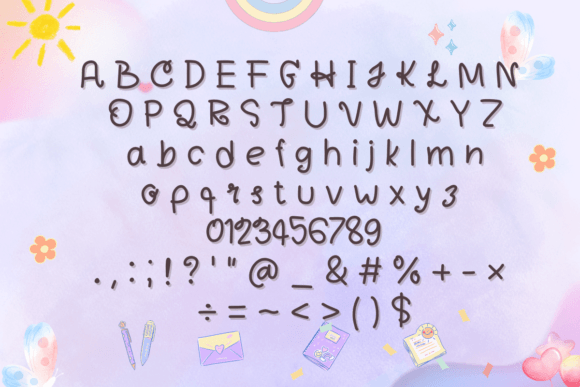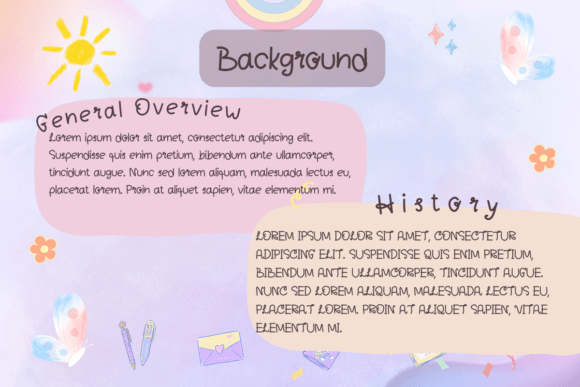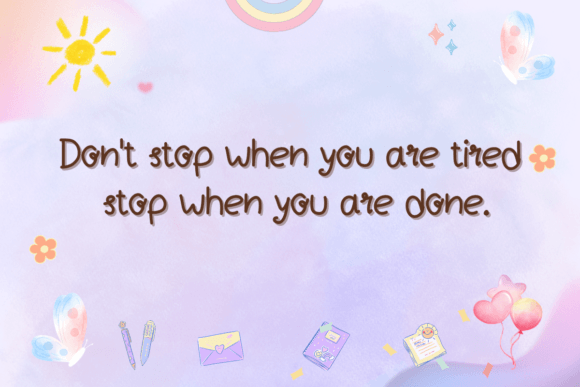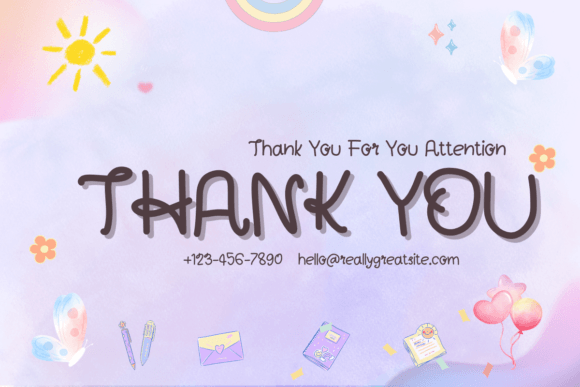
Fireworks Font: A Handwritten Delight for Creative Projects
Are you on the lookout for a unique and playful font to add a personal touch to your creative projects? Look no further than the Fireworks Font! This beautiful handwritten font is perfect for a variety of uses, from taking notes and writing diaries to creating stunning greeting cards and designs. In this article, we’ll explore the versatility of Fireworks Font and how you can use it to elevate your designs.
What is Fireworks Font?
Fireworks Font is a handwritten font that boasts a carefree and whimsical feel. Its flowing lines and delicate curves make it perfect for adding a touch of personality to any project. Whether you’re a designer, crafter, or simply a DIY enthusiast, Fireworks Font is an excellent choice for anyone looking to add a bit of flair to their work.
Uses for Fireworks Font
So, what can you use Fireworks Font for? The possibilities are endless! Here are some ideas to get you started:
- Note-taking and journaling: Add a personal touch to your notes and diary entries with Fireworks Font. Its handwritten feel makes it perfect for recording your thoughts, ideas, and inspirations.
- Greeting cards and invitations: Create beautiful, one-of-a-kind greeting cards and invitations with Fireworks Font. Its playful feel is sure to delight the recipient and make your card stand out.
- Banners and signs: Use Fireworks Font to create eye-catching banners and signs for parties, events, or promotions. Its bold and playful feel is sure to grab attention.
- Social media posts: Add a touch of personality to your social media posts with Fireworks Font. Use it to create engaging and shareable content that will help you connect with your audience.
- Mugs, cards, and shirts: Fireworks Font is perfect for designing custom mugs, cards, and shirts. Its unique feel will make your designs stand out and make great gifts or promotional items.
- Stationery and craft projects: Use Fireworks Font to add a personal touch to your stationery, craft projects, and DIY endeavors. Its whimsical feel is sure to inspire creativity and make your projects more enjoyable.
Why Choose Fireworks Font?
So, why choose Fireworks Font over other fonts? Here are just a few reasons why Fireworks Font stands out:
- Unique and playful feel: Fireworks Font has a one-of-a-kind, handwritten feel that’s sure to add personality to your designs.
- Versatile: Fireworks Font can be used for a wide range of projects, from notes and journals to banners and social media posts.
- Easily readable: Despite its playful feel, Fireworks Font is easy to read, making it perfect for both digital and print designs.
- Great for creative projects: Fireworks Font is ideal for designers, crafters, and DIY enthusiasts looking to add a personal touch to their creative projects.
Tips for Using Fireworks Font
Here are a few tips for getting the most out of Fireworks Font:
- Experiment with colors: Fireworks Font looks great in a variety of colors, so don’t be afraid to experiment and find the perfect hue for your design.
- Mix and match with other fonts: Fireworks Font pairs well with other fonts, so try mixing and matching it with different styles to create a unique look.
- Use it for headings and titles: Fireworks Font is perfect for headings and titles, where its playful feel can really shine.
- Add embellishments: Consider adding embellishments, such as flowers or stars, to give your designs an extra touch of personality.
Fireworks Font is a versatile and playful font that’s perfect for adding a personal touch to your creative projects. Whether you’re a designer, crafter, or DIY enthusiast, Fireworks Font is an excellent choice for anyone looking to add a bit of flair to their work. With its unique feel, versatility, and ease of use, Fireworks Font is sure to become a favorite in your design arsenal.